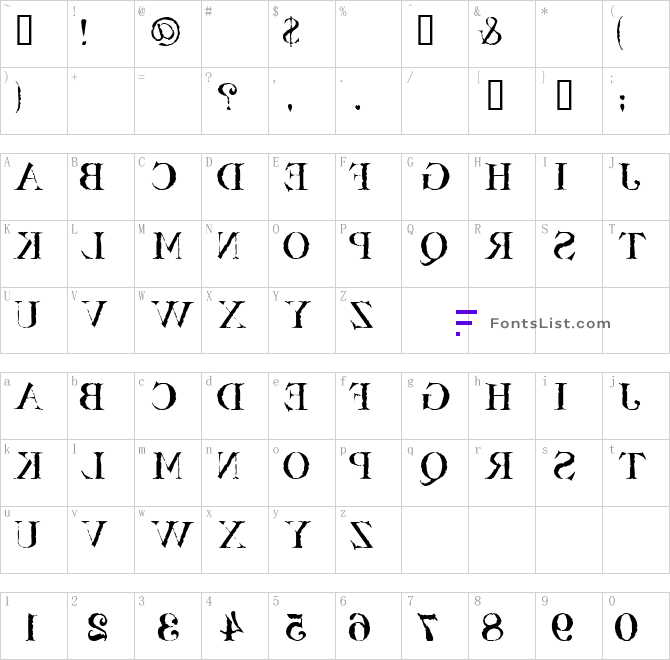
- Font Name:Bassackwards
Bassackwards.ttf is a very beautiful artistic font, Bassackwards.ttf is widely used in the design and printing of various books and pictures,Bassackwards.ttf has a strong visual impact,Bassackwards.ttf is a commonly used font in newspapers, magazines and books, and is used in posters, e-commerce Poster design, store design, logo design, font design and other fields.Bassackwards.